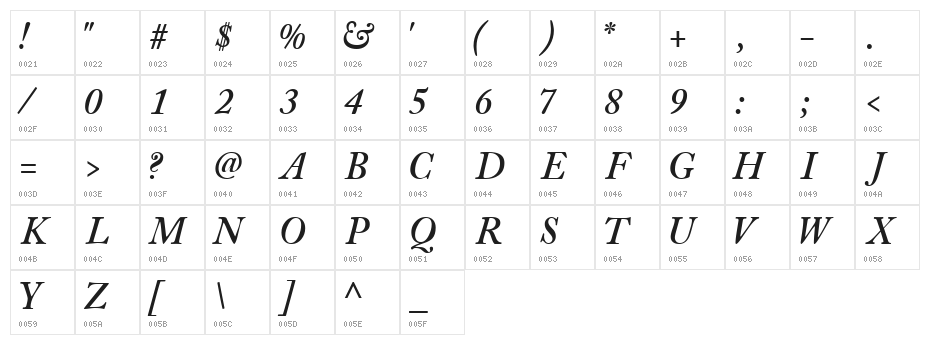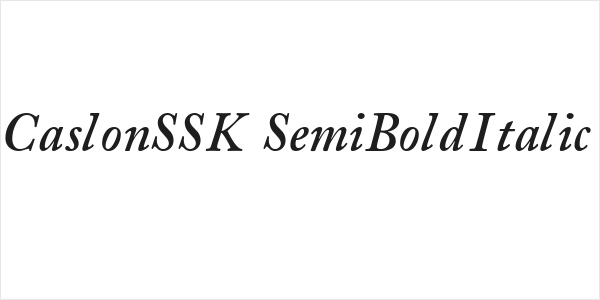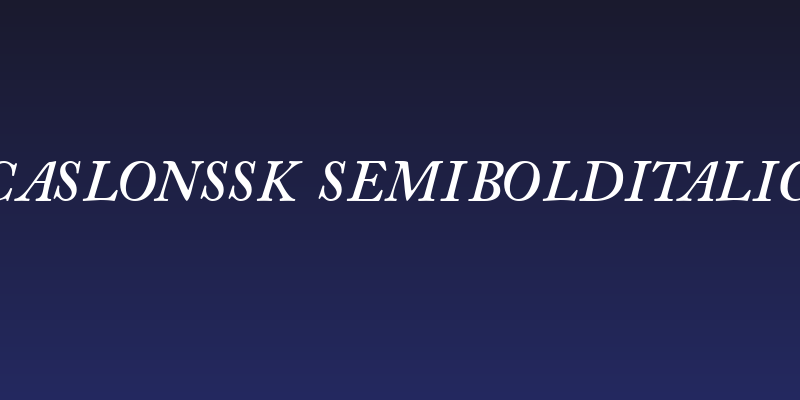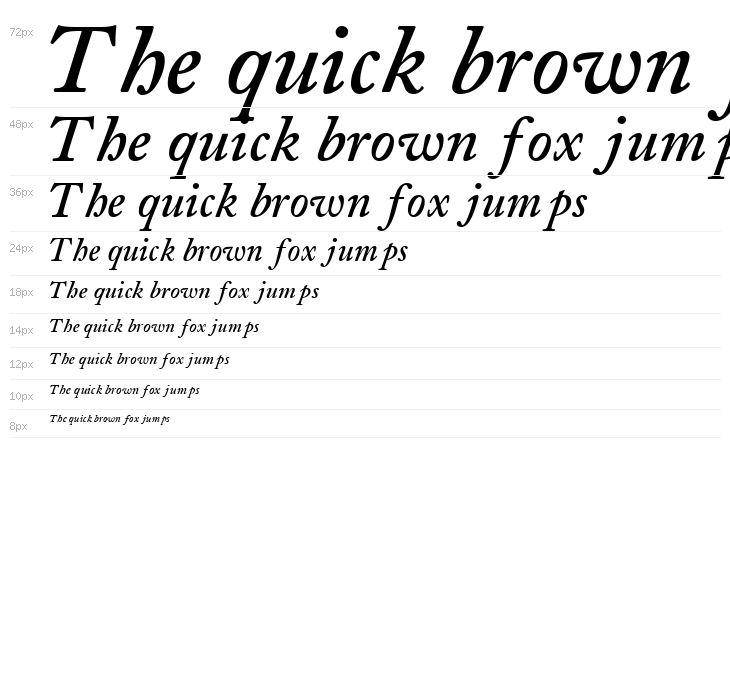
CaslonSSK SemiBoldItalic Font
CaslonSSK SemiBoldItalic Description
This font exudes a classic elegance with its semi-bold weight and italic style, offering a sophisticated and timeless appeal. The serif design features smooth curves and sharp edges, providing a balanced contrast that enhances readability while maintaining a decorative flair. The uppercase letters are stately and commanding, while the lowercase letters offer a graceful flow, making it versatile for various design needs. The numerals are clear and distinct, complementing the overall style. Special characters are thoughtfully designed to match the font's aesthetic, ensuring consistency across all text elements.
| Proposed Projects | Ideal for use in formal invitations, editorial design, branding projects, and elegant signage. |